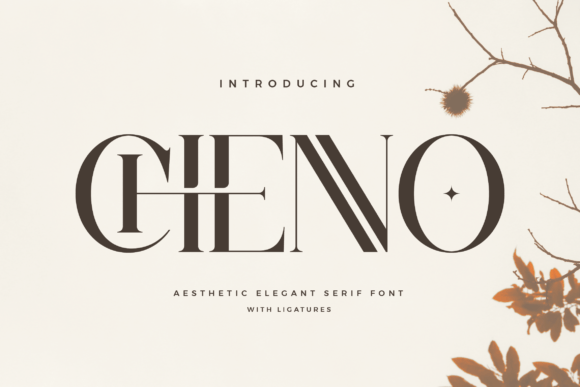
Discover the Elegance of Chenno Font: A Timeless Serif Choice for Modern Designs
In the world of typography, fonts play a crucial role in defining the aesthetic and tone of any design project. Whether you’re working on a luxury brand identity, an editorial piece, or a high-end product design, selecting the right font can elevate your work from ordinary to extraordinary. This is where Chenno Font comes into play—a stylish serif font that seamlessly blends classic elegance with modern sophistication.
What Makes Chenno Font Stand Out?
Chenno is not just another serif font; it’s a carefully crafted typeface designed to bring a sense of timeless beauty and grace to your designs. Its refined serifs and well-proportioned letterforms make it an ideal choice for projects that demand a touch of class and sophistication. Here are some key features that set Chenno apart:
- Refined Serifs: The serifs in Chenno are meticulously designed to add a level of elegance and refinement to your text. They provide a subtle yet distinctive touch that can make your design stand out.
- Well-Proportioned Letterforms: Each letter in Chenno is carefully proportioned to ensure optimal readability and aesthetic appeal. This makes it perfect for both body text and headlines.
- Timeless Appeal: Chenno’s design is rooted in classic typography, yet it carries a modern twist that makes it versatile for a wide range of design applications.
Applications of Chenno Font
Chenno’s versatility and elegance make it suitable for various design projects, including:
- Branding: For luxury brands looking to establish a sophisticated and elegant identity, Chenno can be a perfect choice. It works well in logos, packaging, and marketing materials.
- Editorial Work: Whether you’re designing a magazine, a book, or an editorial piece, Chenno’s readability and aesthetic appeal make it an excellent choice for body text and headlines.
- Luxury Designs: For high-end product designs, interior design projects, or any luxury-related content, Chenno adds a touch of class and sophistication that can elevate your work.
Why Choose Chenno Font?
In a world where design trends come and go, Chenno offers a timeless solution that can stand the test of time. Here are a few reasons why designers and crafters might prefer Chenno:
- Elegance: Chenno brings an unmatched level of elegance to your designs, making them more appealing and engaging.
- Versatility: Its classic yet modern design makes Chenno versatile for a wide range of projects, from traditional print designs to digital platforms.
- Readability: Despite its elegant and refined features, Chenno maintains excellent readability, making it suitable for both large and small text sizes.
How to Use Chenno Font Effectively
To make the most out of Chenno, consider the following tips:
- Pair it with Sans Serifs: For a modern contrast, pair Chenno with a clean sans serif font for body text or headings.
- Experiment with Weights: If available, experiment with different weights of Chenno to create visual hierarchy and add depth to your designs.
- Consider Letter Spacing: Adjusting the letter spacing can further enhance Chenno’s readability and aesthetic appeal, especially in larger blocks of text.
| Author | Aqeel_Art |
Chenno Font is a stylish serif typeface that brings a perfect blend of classic elegance and modern sophistication to your designs. Its refined serifs, well-proportioned letterforms, and timeless appeal make it an ideal choice for designers and crafters looking to add a touch of class and sophistication to their work. Whether you’re working on branding, editorial projects, or luxury designs, Chenno is a versatile and elegant solution that can elevate your projects to new heights.
Discover the elegance of Chenno Font today and transform your designs with a touch of timeless beauty and grace.